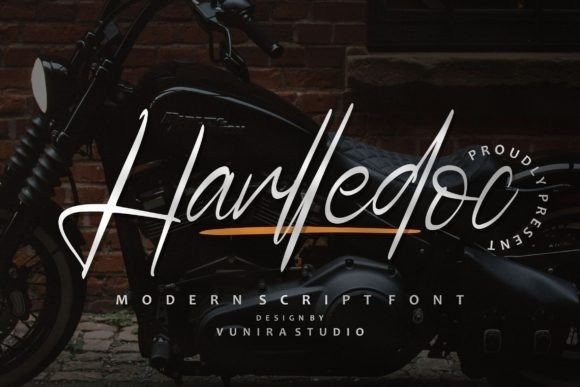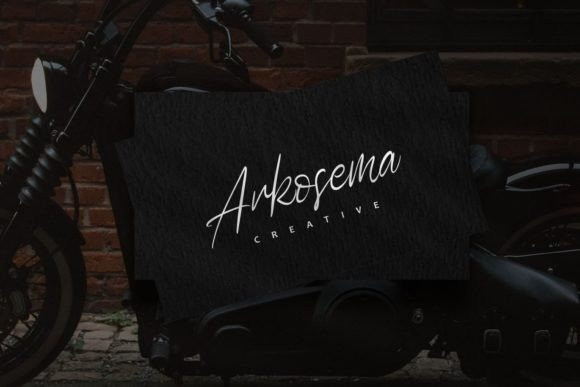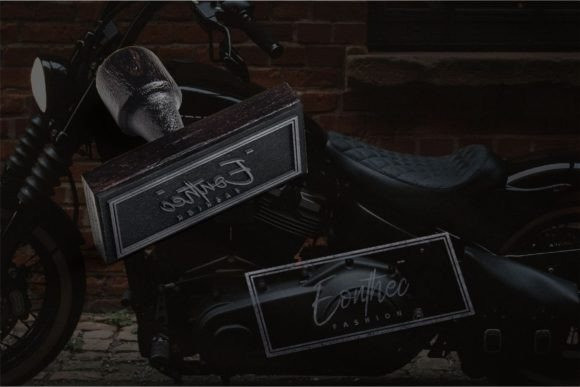
Harlledoc Font
Harlledoc is a modern script font with a calligraphy style. It looks so beautiful on invitations, greeting cards, branding materials, business cards, quotes, posters, and more!